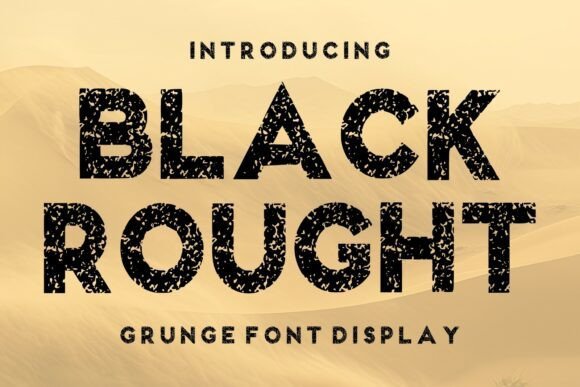
Unleash Your Inner Rebel with Black Rought Font
Have you ever stared at a blank canvas, desperate for the perfect font to bring your design to life? That’s exactly what happened to me when I was working on a project for a local music festival. I wanted something bold, something edgy, something that would scream “rock ‘n’ roll” from the rooftops. That’s when I discovered the Black Rought Font – a game-changer that added an instant layer of attitude to my design.
This grunge display font is a masterclass in texture and style, with a rough, distressed look that’s guaranteed to turn heads. Perfect for posters, streetwear designs, and branding, the Black Rought Font is an essential tool for any designer looking to add some vintage grit to their work. With its bold, artistic character, this font is the perfect way to give your designs a rugged, rebellious edge.
Black Rought Font Key Features
- Font Family: Black Rought is a sans-serif font family.
- Unique Characteristics: Black Rought features a distinctive rough texture and subtle irregularities, giving it a unique, hand-crafted feel.
Black Rought Font Review
I recently had the chance to work with the Black Rought font, and I must say it’s a unique and eye-catching addition to any design project. ✨ The font’s bold and rough texture adds a touch of edginess, making it perfect for modern and urban designs.
- ✨ It’s great for creating attention-grabbing headlines and titles.
- ✨ The font’s rough texture adds a sense of depth and dimensionality to designs.
- ✨ It’s available in a range of weights, making it versatile for different design applications.
However, there are a few limitations to consider. ⚠️ The font can be quite dense, which may make it difficult to read in smaller sizes. Additionally, the rough texture can sometimes make the font look cluttered or overwhelming.
- ⚠️ It may not be suitable for designs where readability is a top priority.
- ⚠️ The font’s texture can be distracting in certain design contexts.
Overall, the Black Rought font is a great addition to any designer’s toolkit. While it may have some limitations, its unique texture and versatility make it a valuable asset for modern designs. With careful use, it can add a touch of sophistication and edge to even the most mundane designs.
For best results, use Black Rough Font for headings and titles, and pair it with a clean sans-serif font for body text.
For a dramatic effect, use Black Rough Font as a drop cap or to highlight important text.
For a bold and eye-catching effect, use Black Rough Font for headings and titles.
Tips for Getting the Most Out of Black Rough Font
Use Black Rough Font to add a touch of elegance and sophistication to your designs.
Pair Black Rough Font with a clean and minimalistic design to create a striking contrast.
Experiment with different font sizes and styles to create a unique and eye-catching effect.
Black Rough Font is ideal for:
Headings and titles
Drop caps and highlighted text
Branding and logos
Editorial and magazine designs
Alternatives to Black Rought Font
Montserrat is a sans-serif font designed by Julieta Ulanovsky. It’s ideal for headings and titles due to its bold and modern feel. Montserrat is a great alternative to Black Rought Font as it has a similar industrial feel but with a more refined look.
Source Sans Pro is a sans-serif font designed by Paul D. Hunt. It’s a highly legible font suitable for body text and is available in a range of weights. Compared to Black Rought Font, Source Sans Pro has a more neutral and clean design, making it a great choice for projects where a bold font is not necessary.